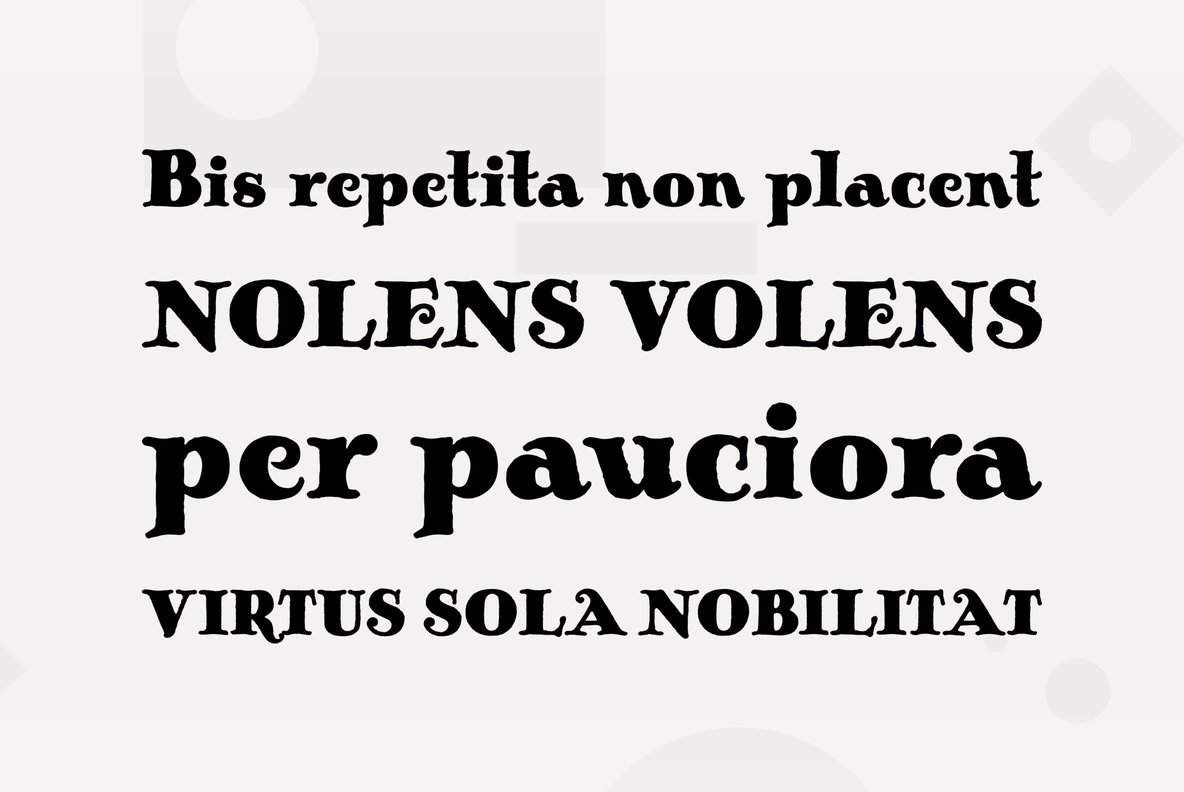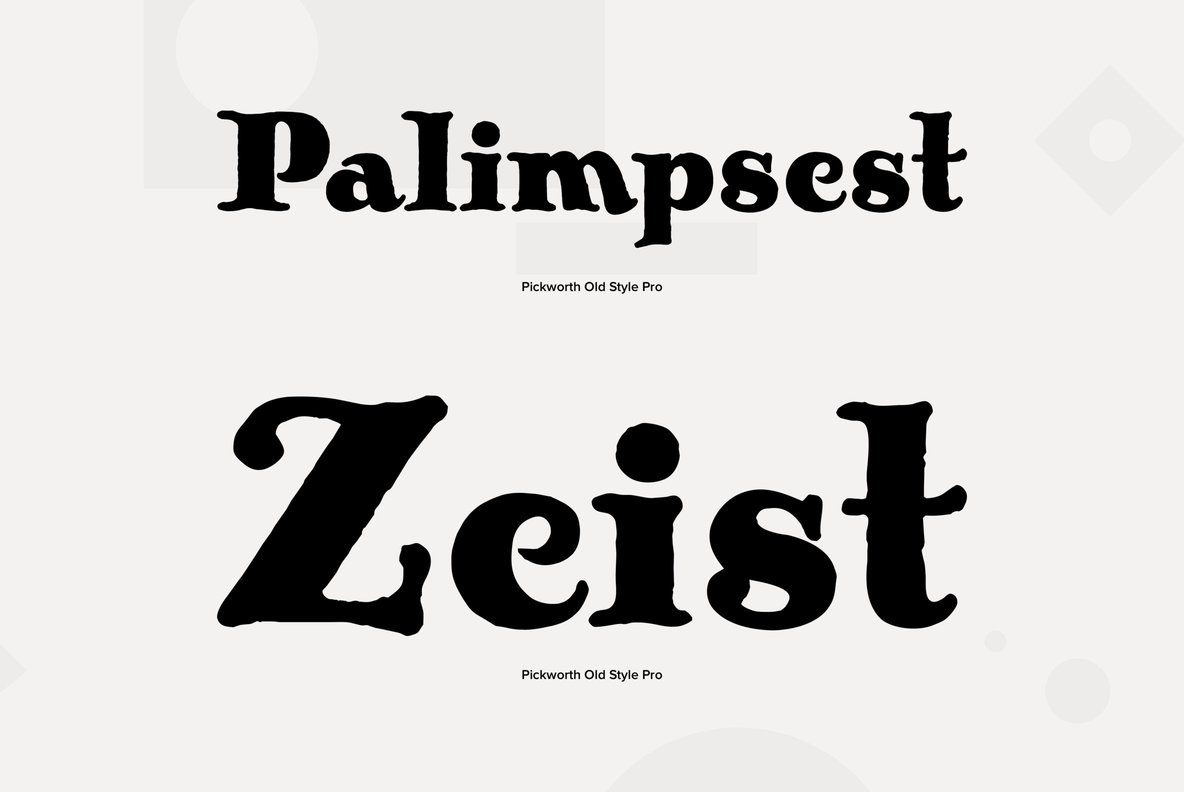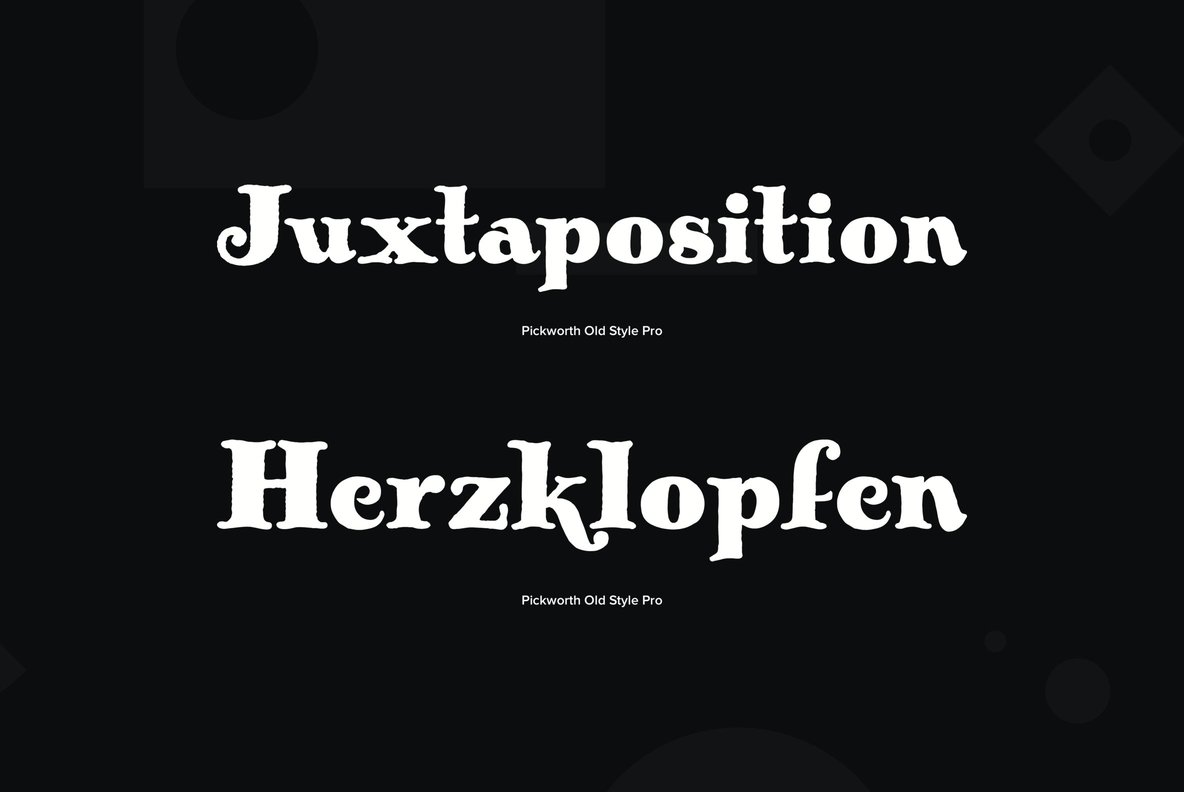
Designed by Steve Jackaman & Ashley Muir. An antique, rustic or even mystical design that will grow on you the more you use it. Pickworth contains all the high-end features expected in a quality OpenType Pro font.